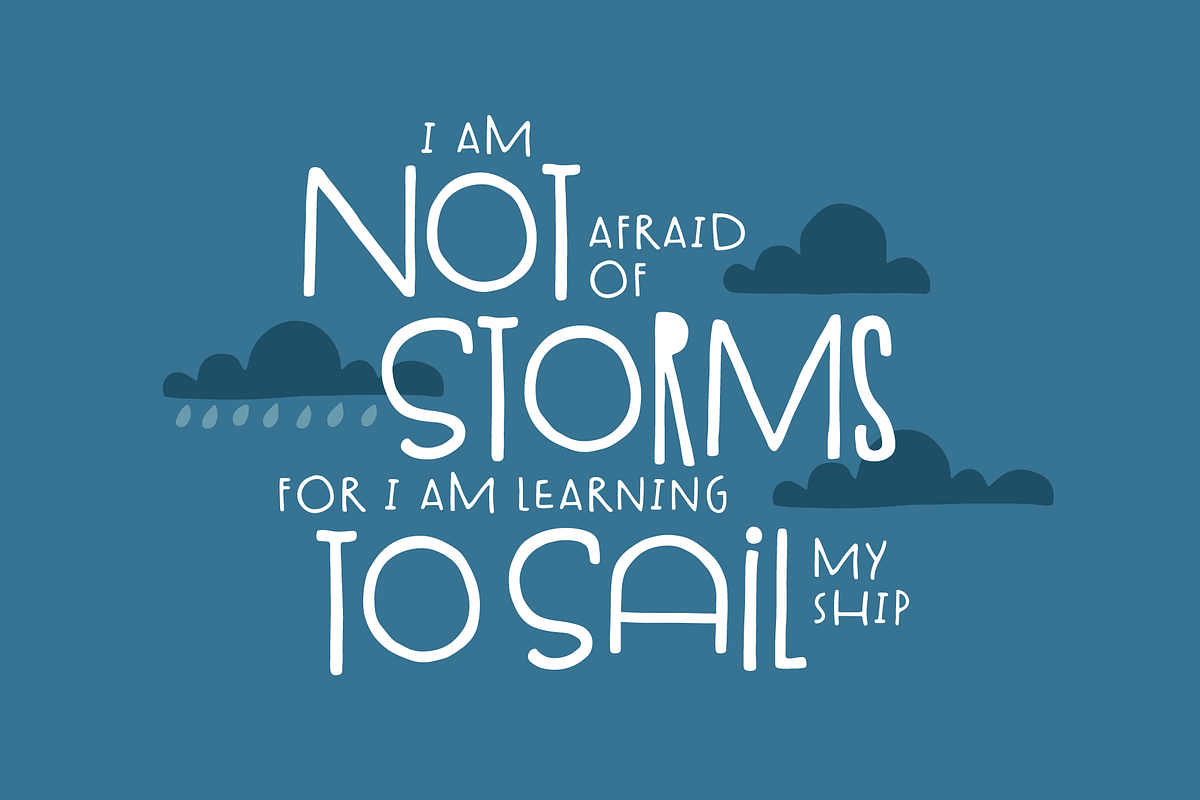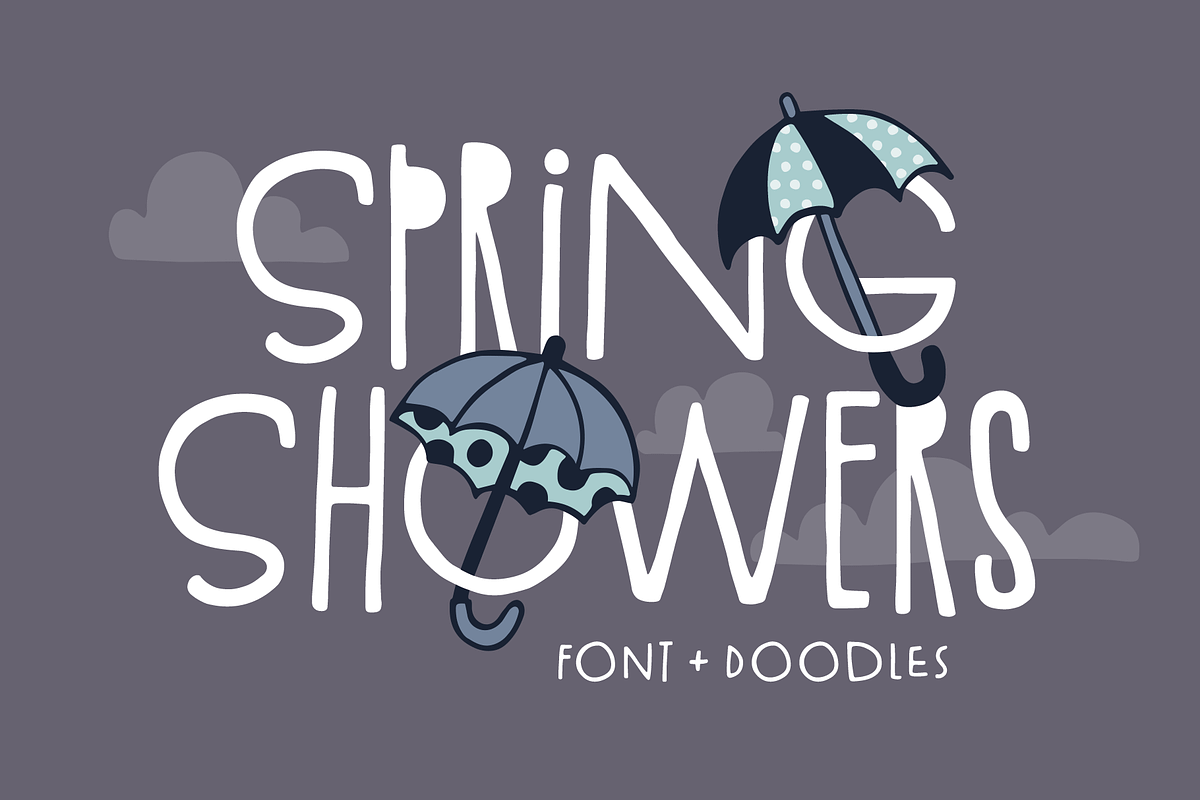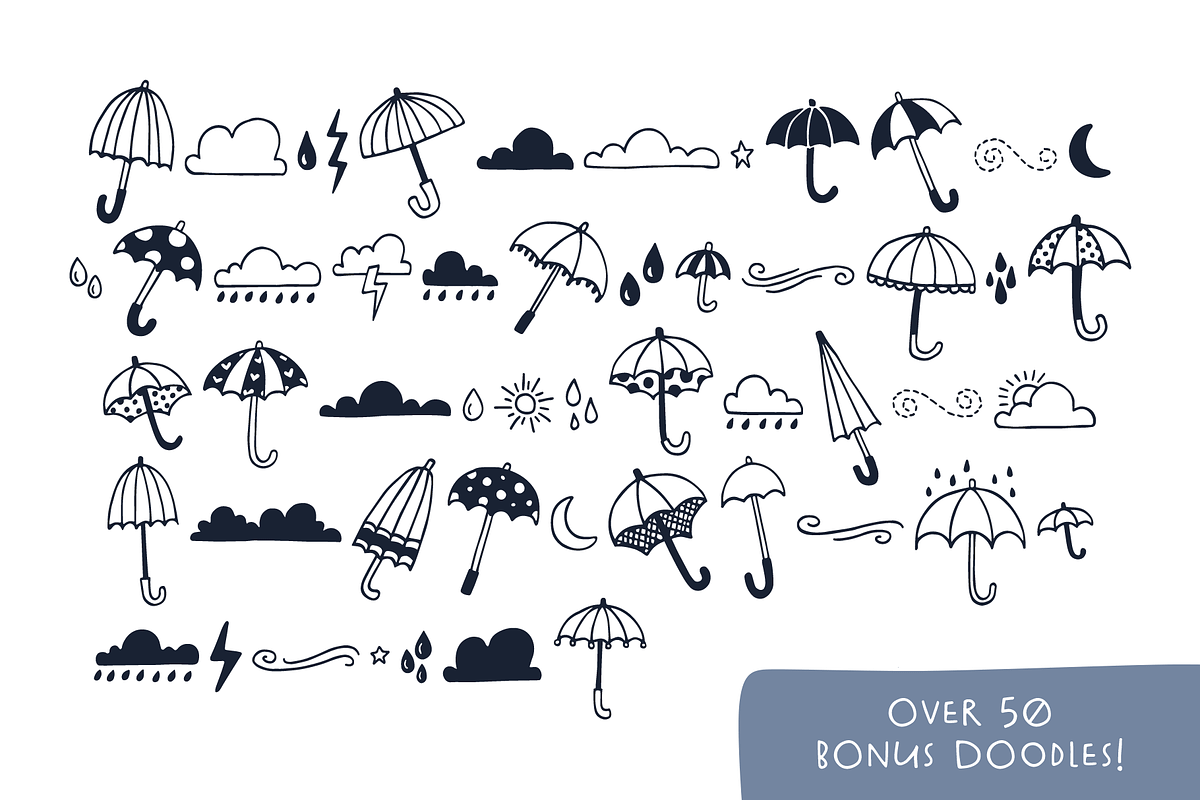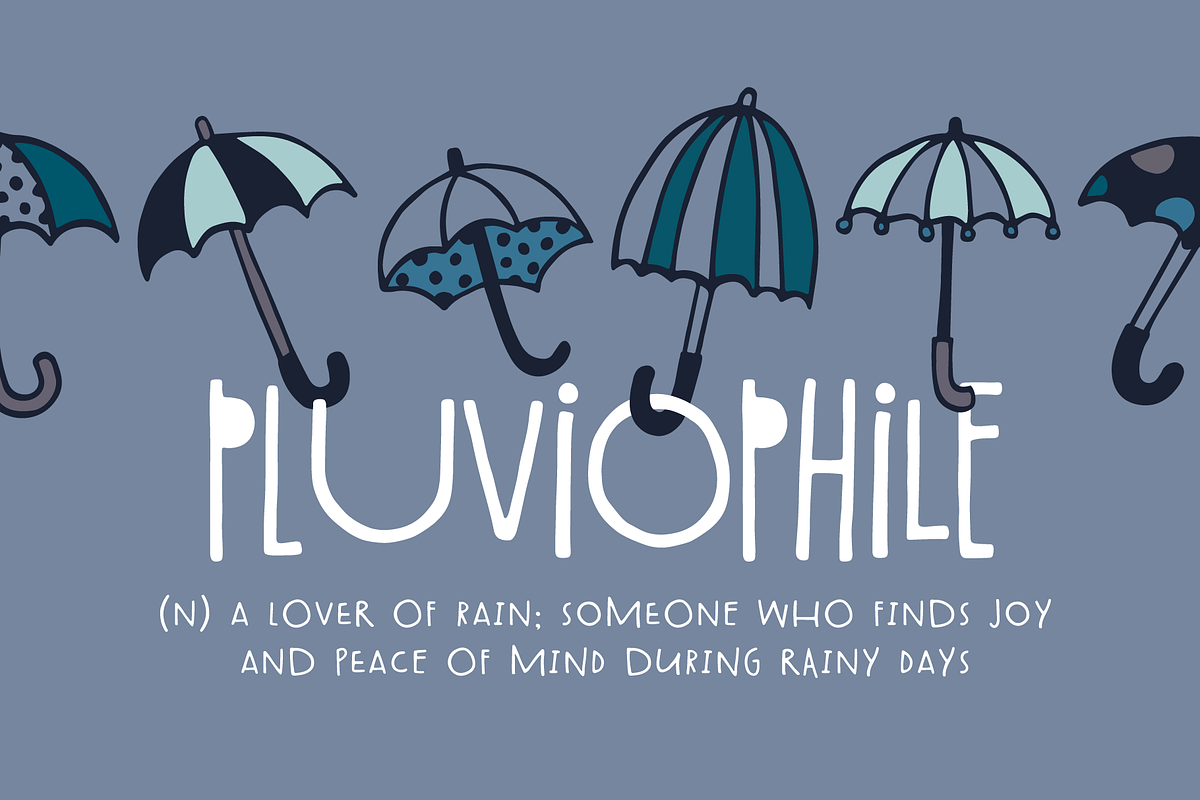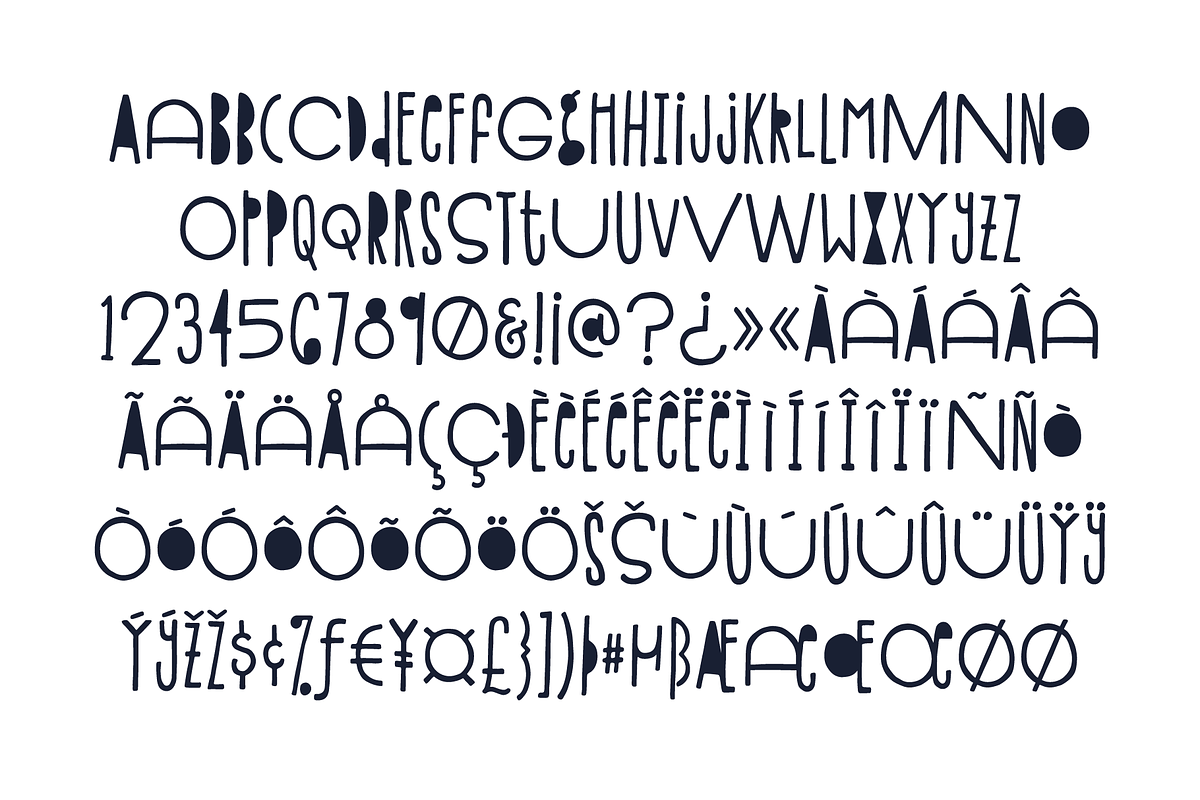
Spring Showers Font + Doodles
Introducing: Spring Showers! A thin, hand-drawn font with a mix of wide and condensed characters. Also comes with over 50 rainy day doodles.
- A thin, hand-drawn font with a mix of wide and condensed characters.